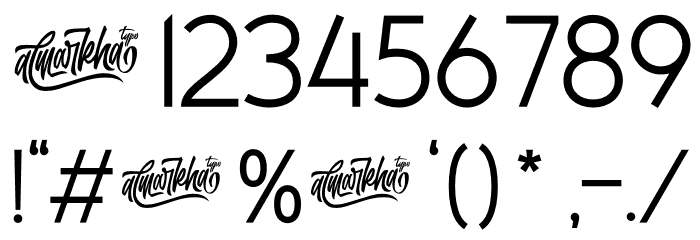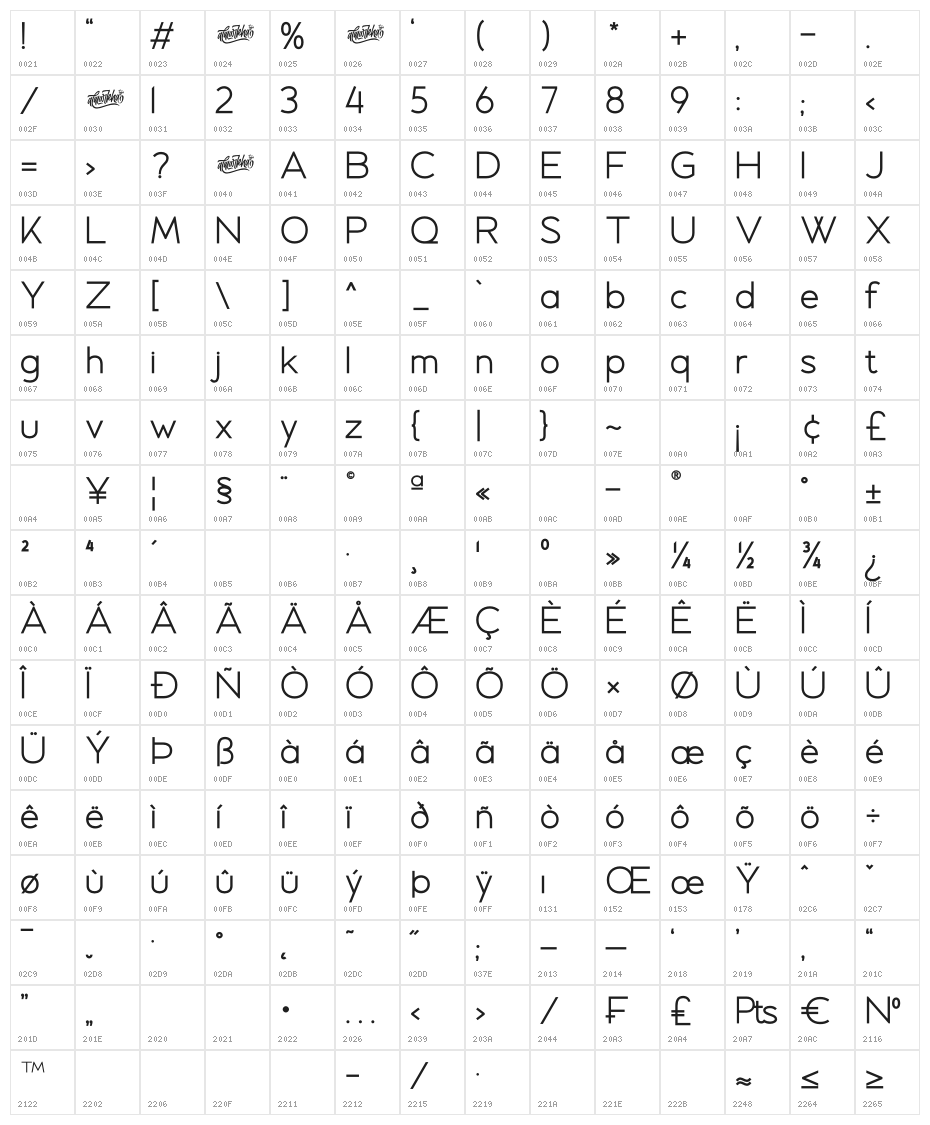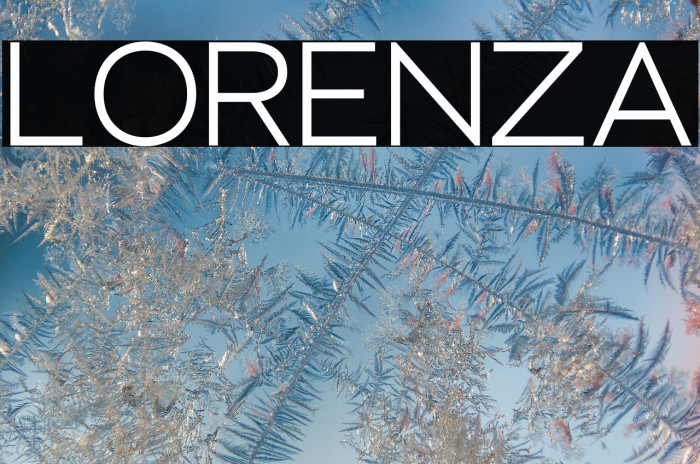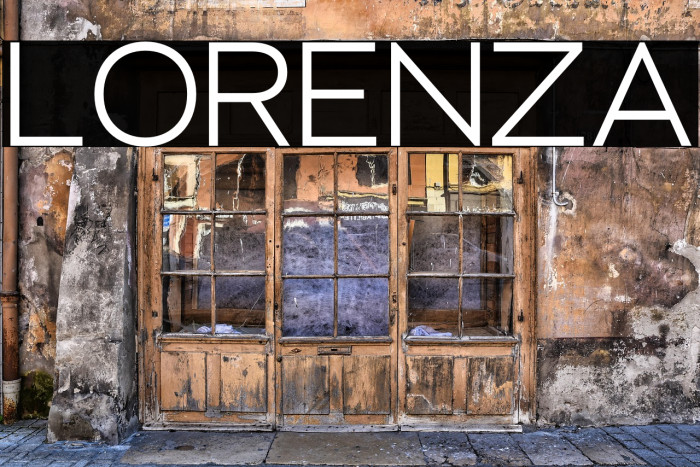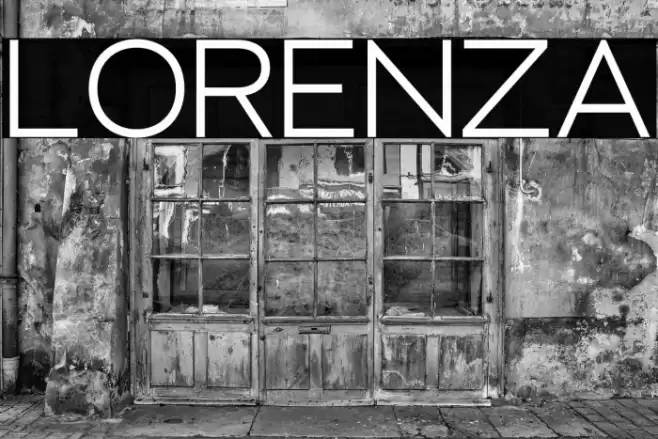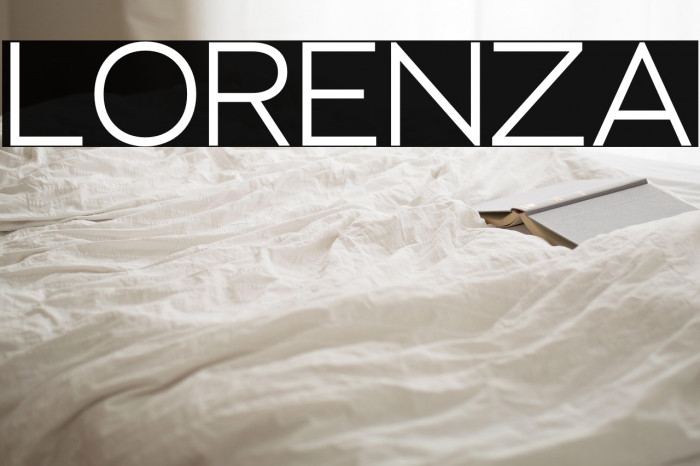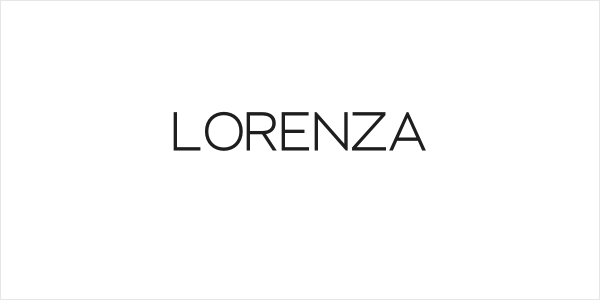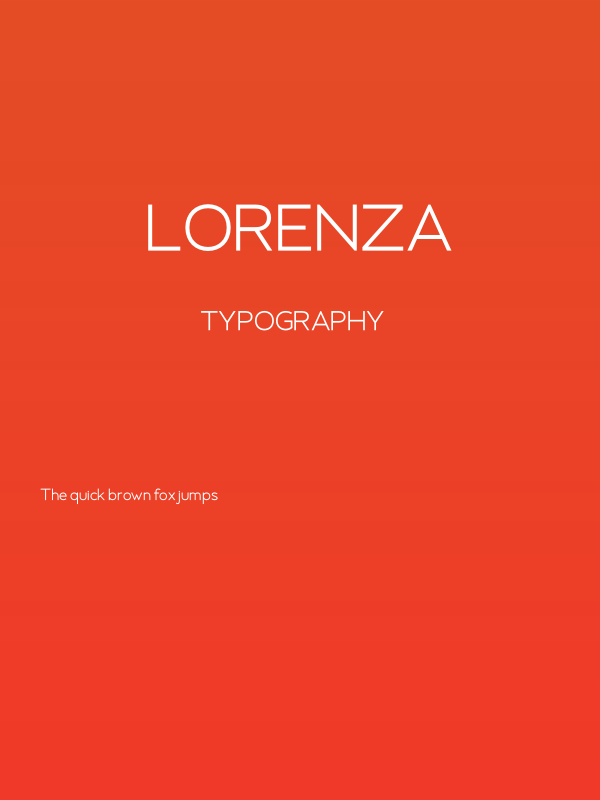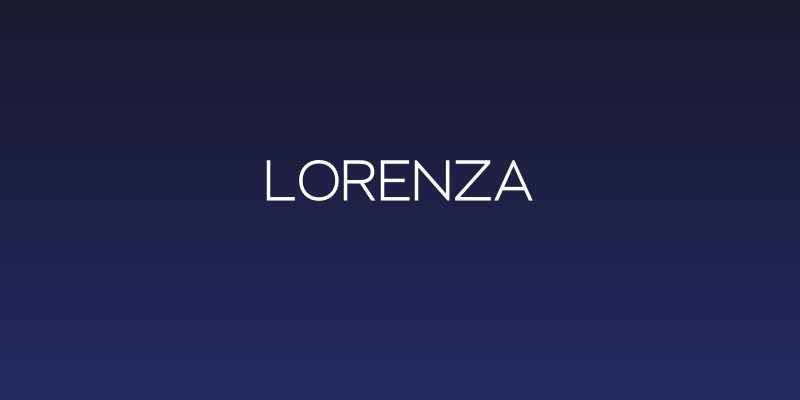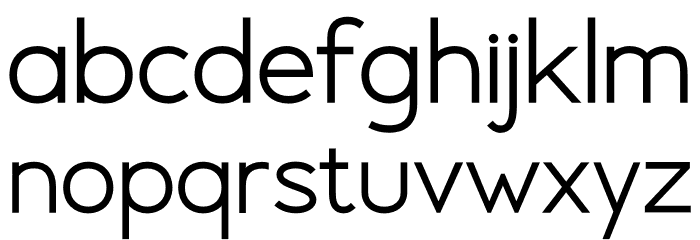
LORENZA Font
LORENZA Description
This font features a clean and modern sans-serif design with a geometric structure. The uppercase and lowercase letters are well-proportioned, offering a harmonious and balanced appearance. The numerals are clear and easy to read, making them suitable for various applications. Special characters are included, maintaining the font's sleek and contemporary style. The overall design is minimalistic, with a focus on readability and versatility, making it ideal for both digital and print media.
| Proposed Projects | Ideal for branding, web design, advertising, and editorial projects where clarity and modernity are essential. |